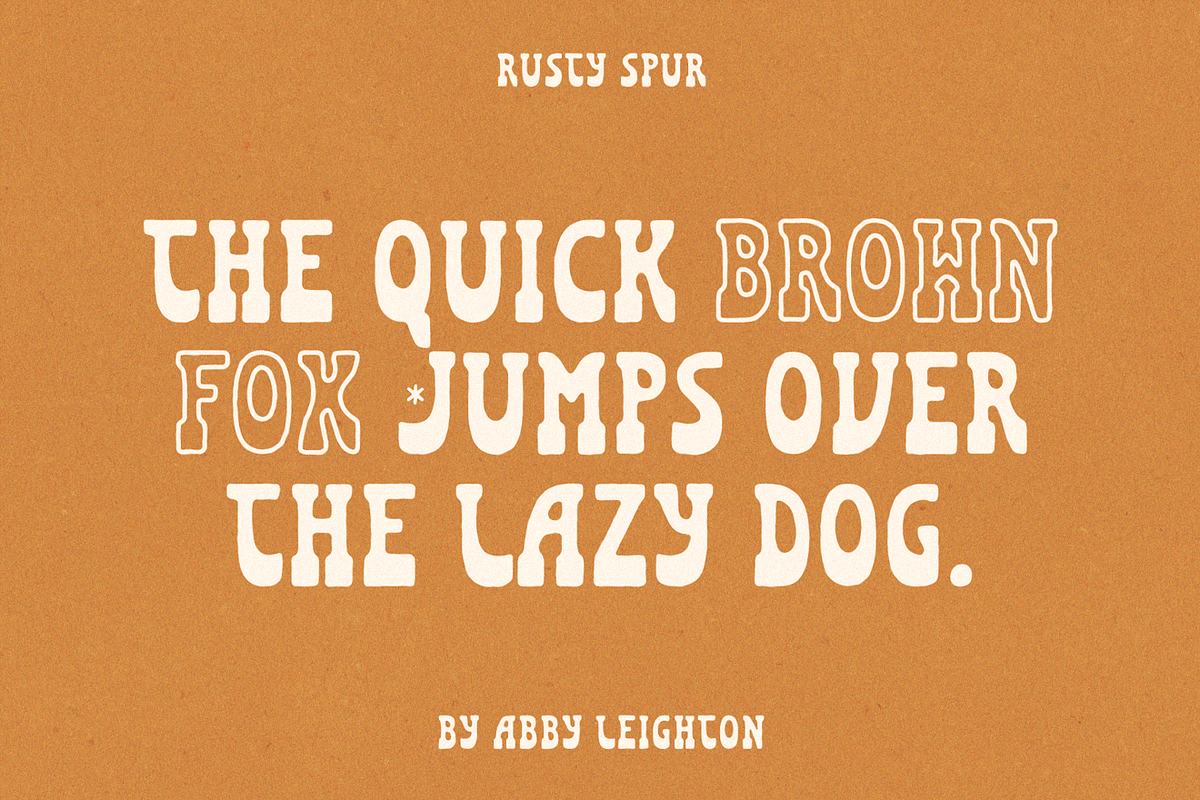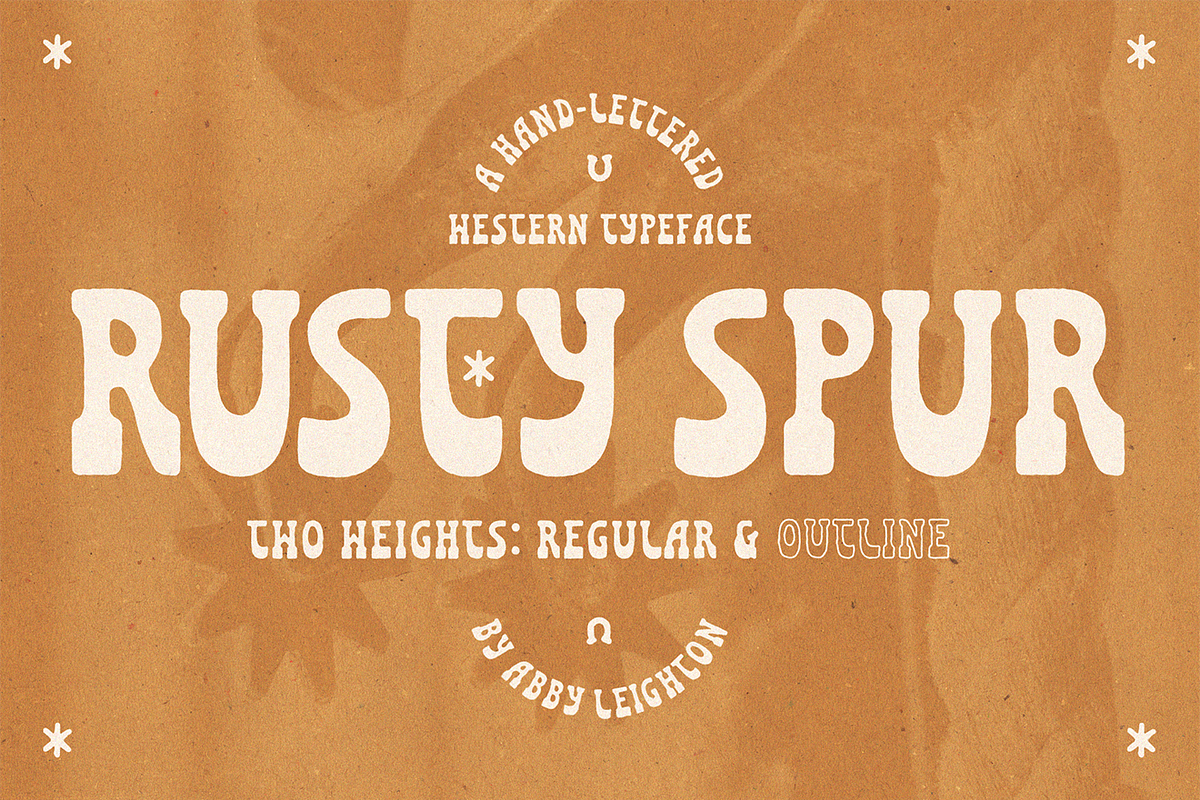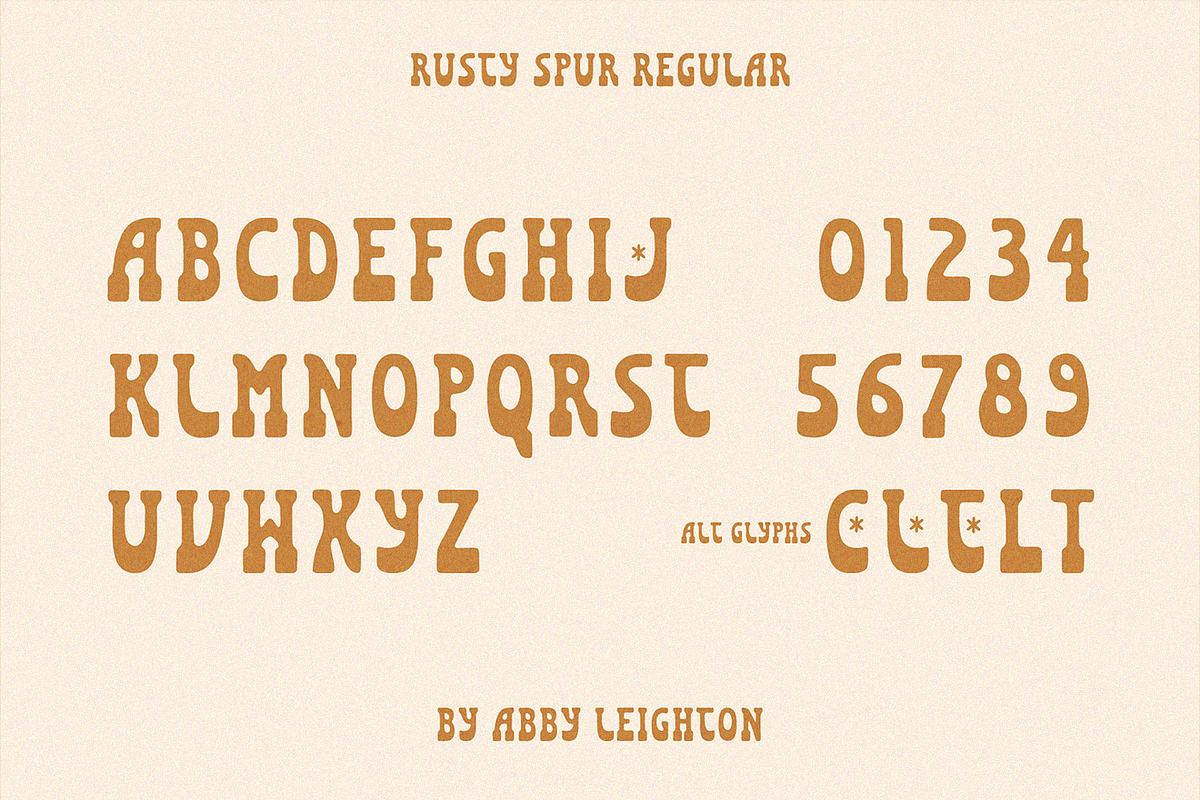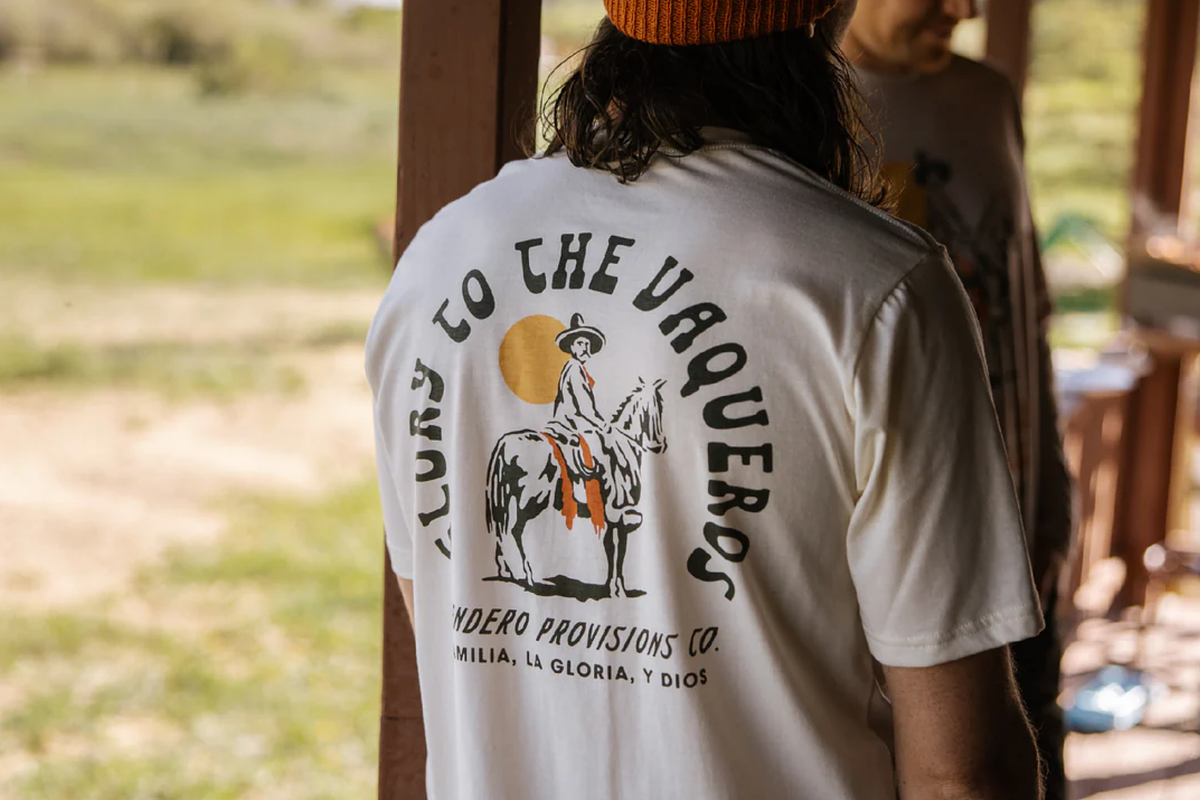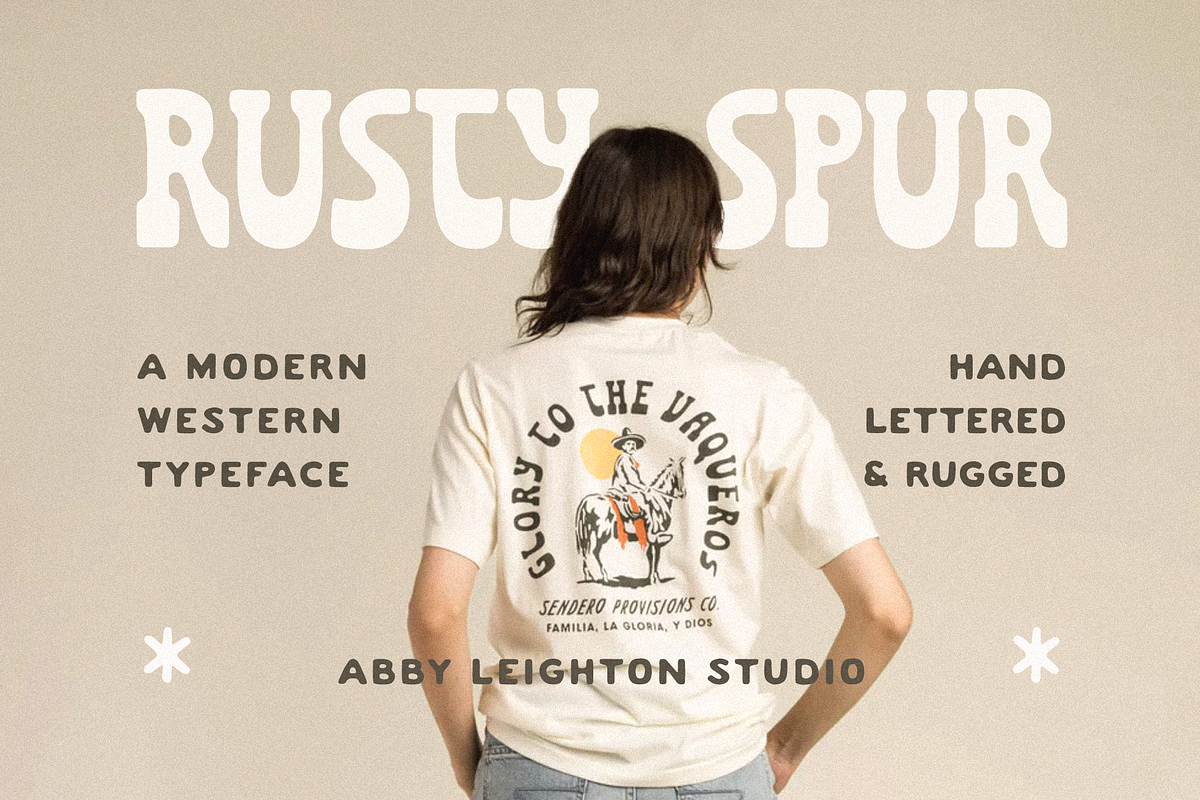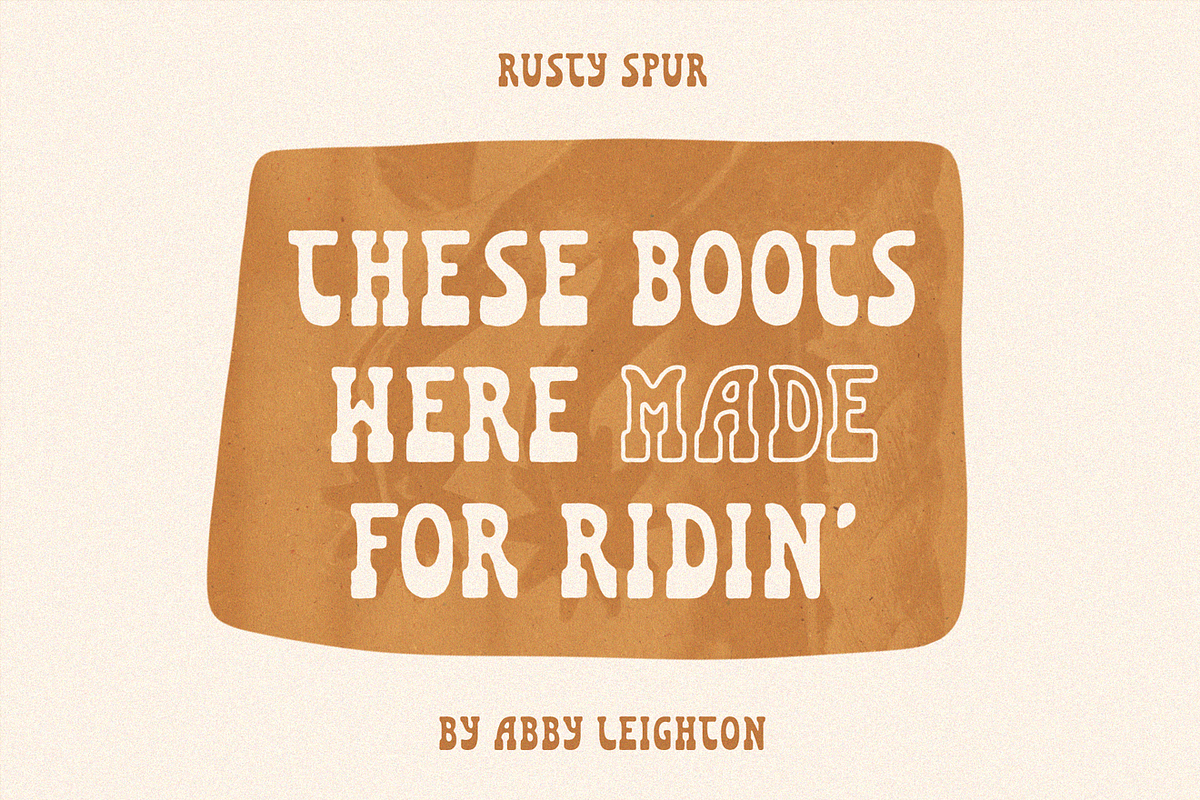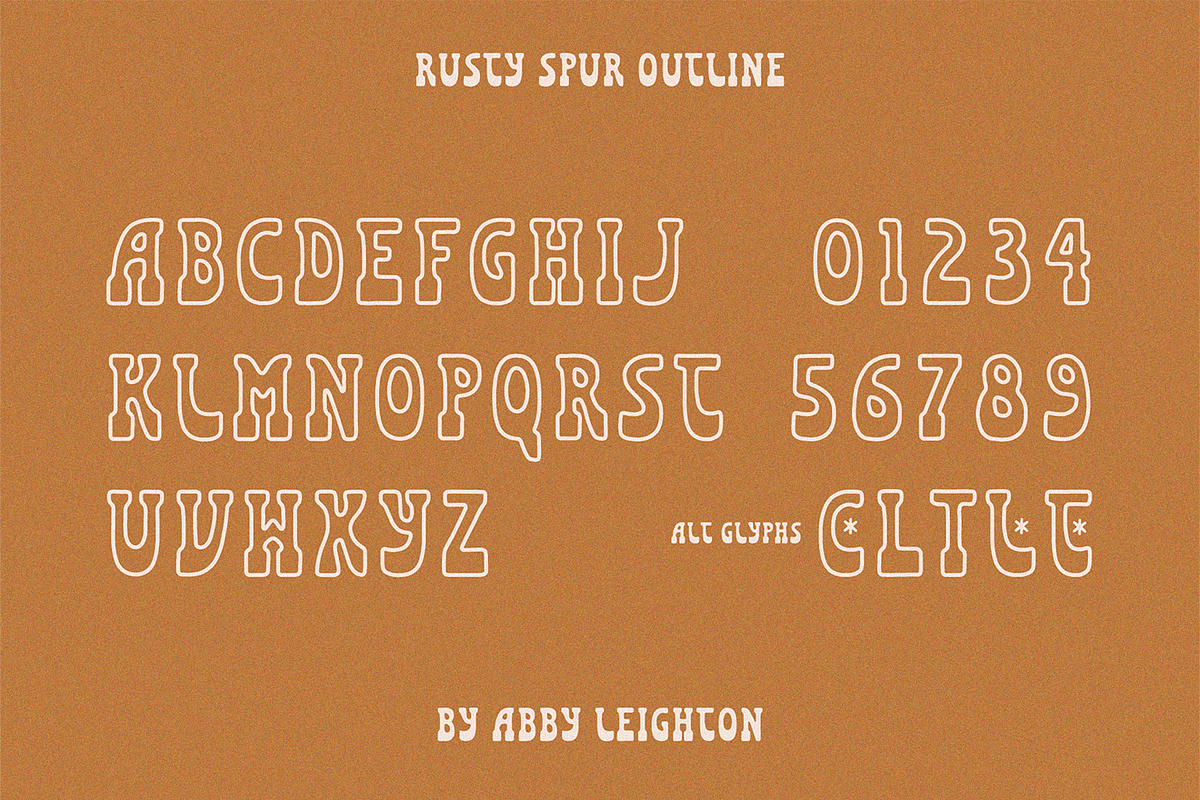
RUSTY SPUR by Abby Leighton
The perfect mix of old western slab serif typography & art nouveau. With a hand-lettered feel, this display font is great for logos and title texts, where the personality can really show off!